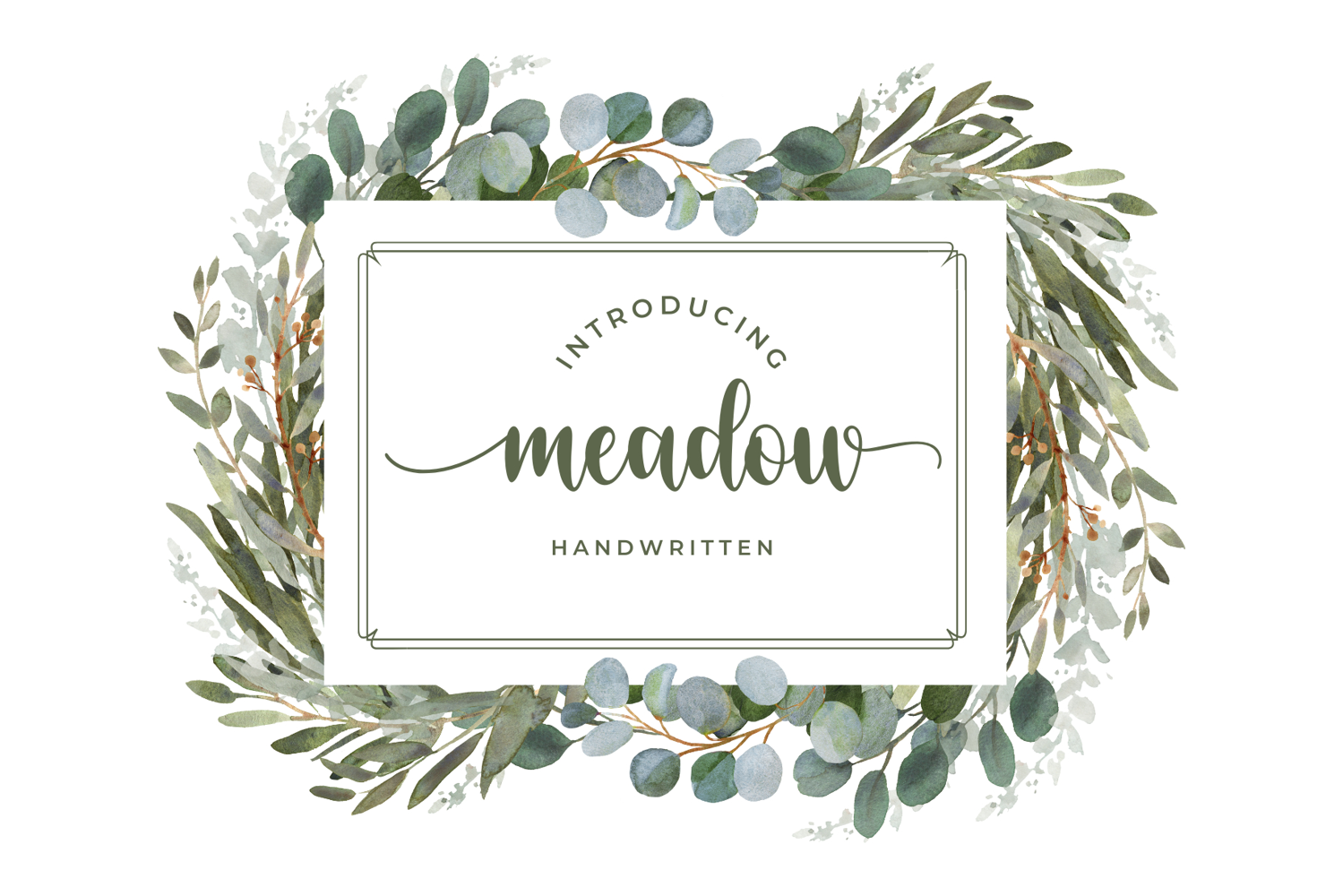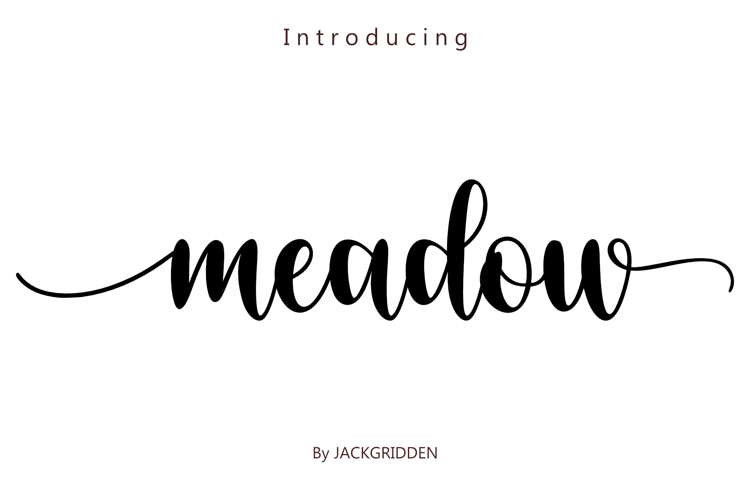
meadow
The Meadow Font is a premium script font that exudes elegance and sophistication. With its intricate, flowing strokes and delicate curves, this font is perfect for adding a touch of charm and grace to any project. Whether used for invitations, branding, or packaging, the Meadow Font is sure to make a lasting impression.